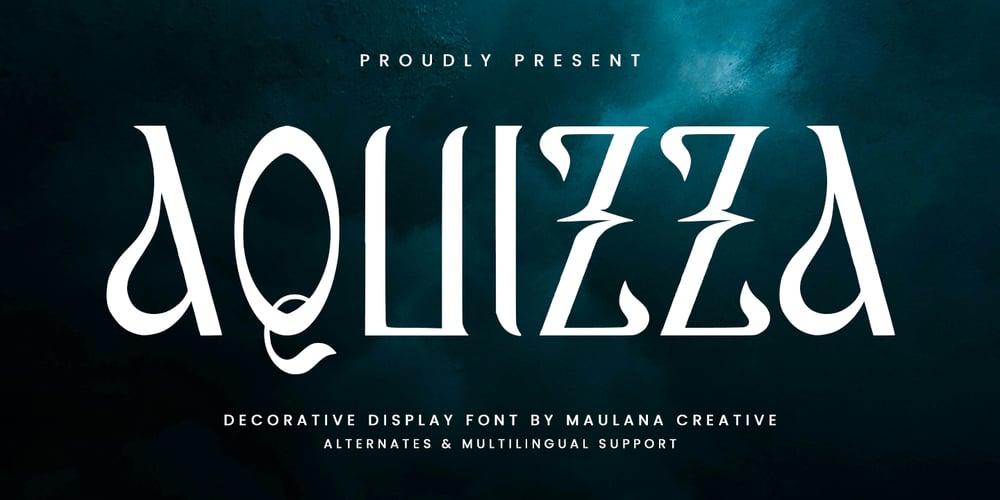
MC Aquizza
MC Aquizza font
MC Aquizza Font Family was designed by Gilang Maulana and published by Maulana Creative. MC Aquizza contains 1 styles and family package options. Aquizza decorative display typeface. Heavy stroke, fun character with a alternates. To give you an extra creative work. Aquizza display typeface support multilingual language. This font is good for logo design, Social media, Movie Titles, Books Titles, a short text even a long text letter and good for your secondary text font with script or serif. Make a stunning work with Aquizza display typeface. Cheers, Maulana Creative